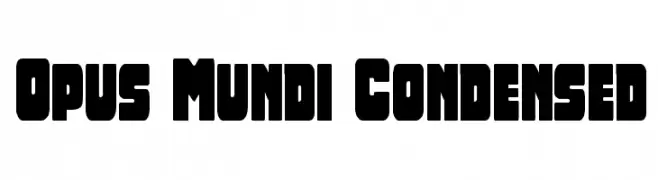
A bold, geometric font with a futuristic and industrial design.
A bold, condensed, and italicized font with a futuristic and sporty design.
A bold, italic, and condensed font with a modern, angular design.
A playful, bold, and condensed hand-drawn font with a friendly appearance.
A bold, grungy font with splattered, chaotic elements for an edgy look.
A distressed, grungy font with splatter and drip effects for an edgy look.
Ultra-condensed, bold font with high contrast and modern appeal.
A bold, condensed font with sharp, angular edges and a modern, geometric style.
A bold, angular, and condensed italic font with a modern, edgy style.
A bold, textured, and condensed font with a rugged, grunge style.
A bold, condensed, and italicized font with a rugged and dynamic style.
A bold, condensed font with sharp, angular edges and a vintage-modern aesthetic.
A bold, condensed italic font with a modern and dynamic style.
A bold, condensed font with artistic, calligraphic elements.
A bold, condensed, and italic font with dynamic strokes and tight spacing.
A decorative, condensed serif font with artistic and whimsical elements.
A dynamic, condensed italic font with elegant, flowing characters.
A bold, condensed font with a rugged, distressed style.
A bold, condensed, and italic font with a dynamic, hand-drawn style.
An elegant, condensed script font with ornate uppercase letters.
A bold, graffiti-inspired font with dynamic and angular letterforms.
A bold, graffiti-inspired font with sharp, angular edges and a condensed form.
A bold, angular, and condensed font with a futuristic and dynamic style.
A bold, angular, and futuristic font with a condensed style.
A dynamic, angular, and italicized typeface with a modern, speedy aesthetic.
A sharp, angular font with a gothic influence and condensed form.
A dynamic, condensed italic font with sharp, angular strokes and high contrast.
A bold, bone-themed decorative font with a condensed style.
A bone-themed, condensed italic font with a playful, spooky style.
A bold, 3D geometric font with a futuristic style.
A bold, 3D italic font with outlined characters and a futuristic style.
A bold, futuristic font with a distinctive striped pattern and geometric shapes.
A bold, italicized font with a futuristic, striped design.
A bold, modern, and condensed font with a futuristic aesthetic.
A modern, italicized, and condensed font with a bold, sleek design.